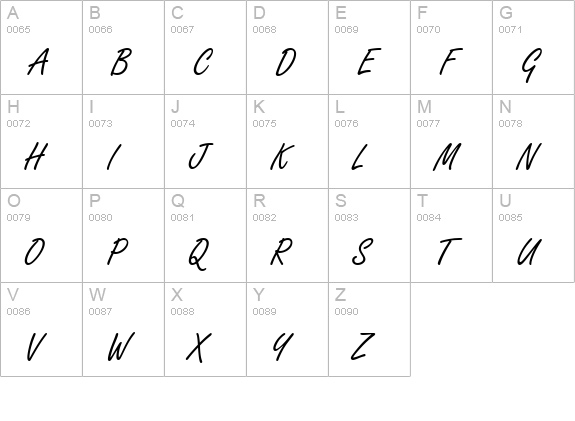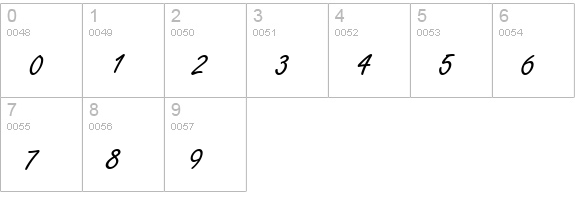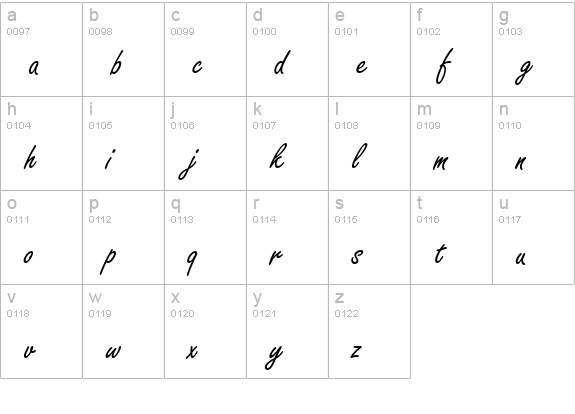
FreestyleScrDEE Font Details
FreestyleScrDEE font is a unique and stylish typeface that brings a sense of creativity and free-spiritedness to any design project. Its hand-drawn style and playful curves make it perfect for adding a personal touch to invitations, posters, logos, and more. With its casual yet energetic vibe, FreestyleScrDEE is sure to stand out and make a statement. And the best part? FreestyleScrDEE is available for free download at FontsMarket.com. This means you can easily access this eye-catching font and use it in your projects without any cost. So why wait? Add a touch of fun and personality to your designs with FreestyleScrDEE today!